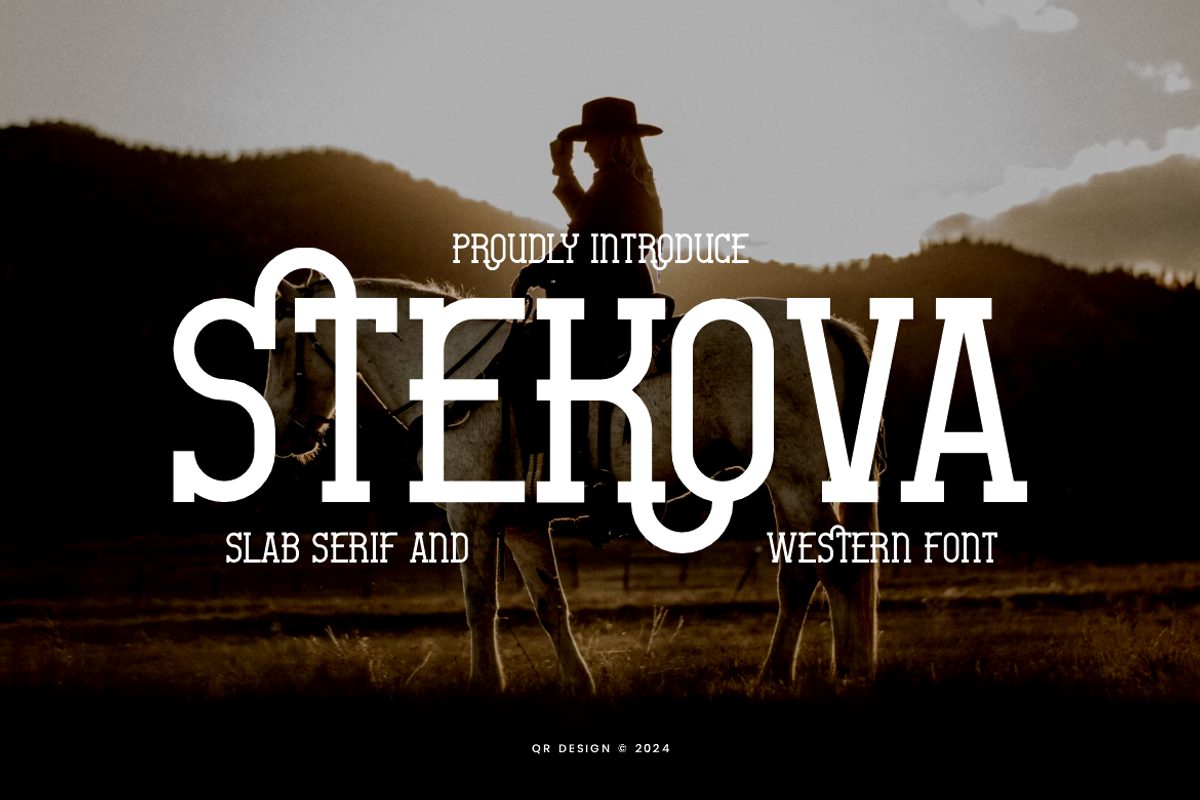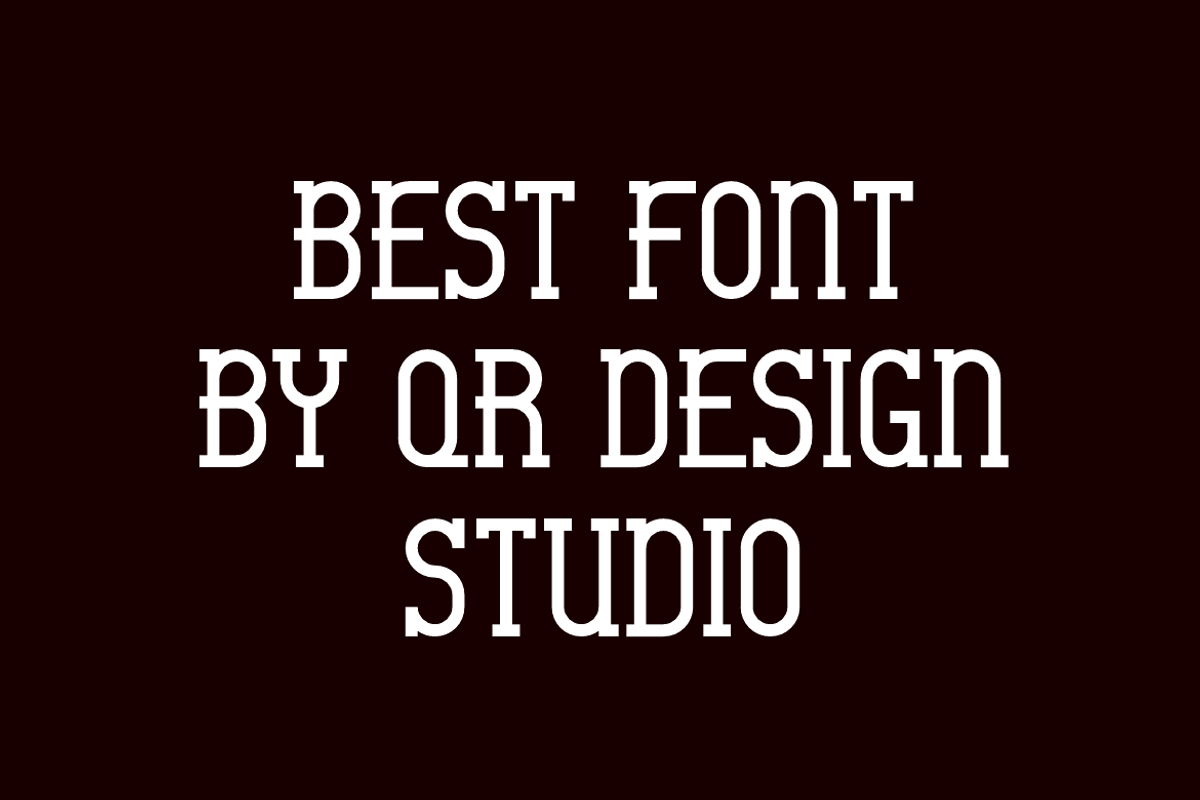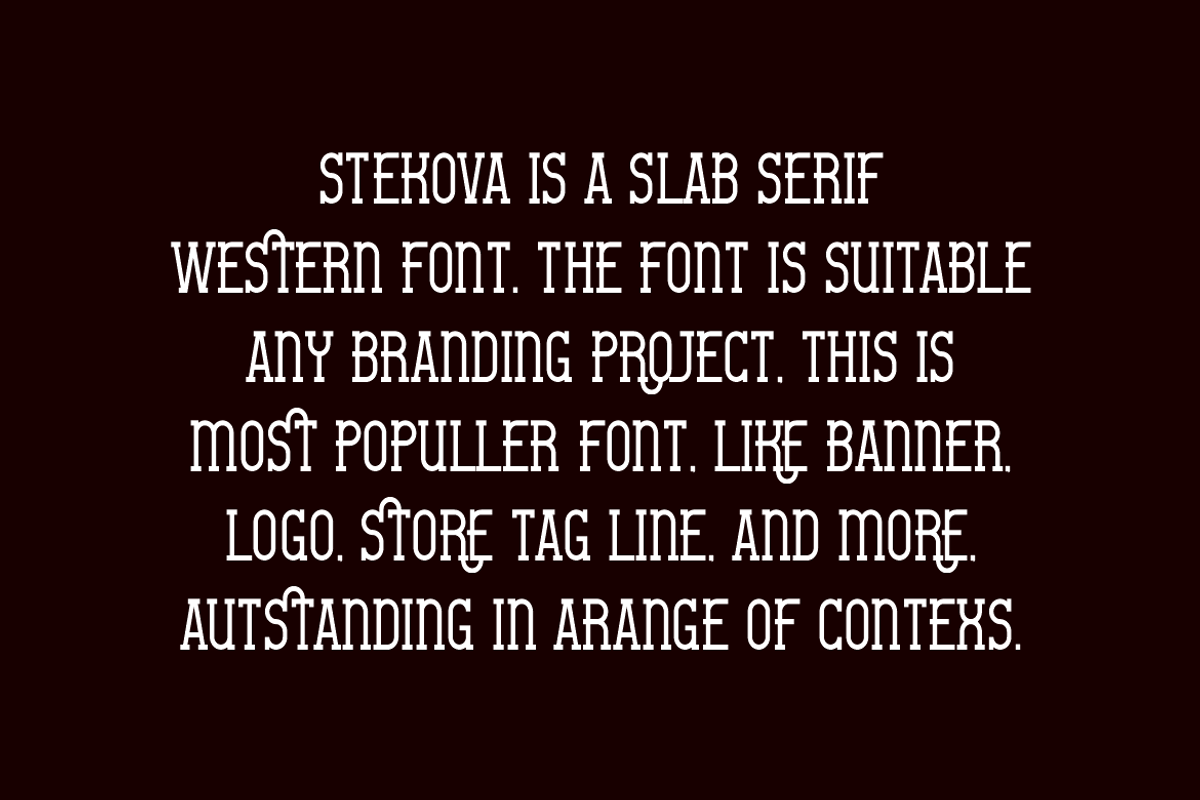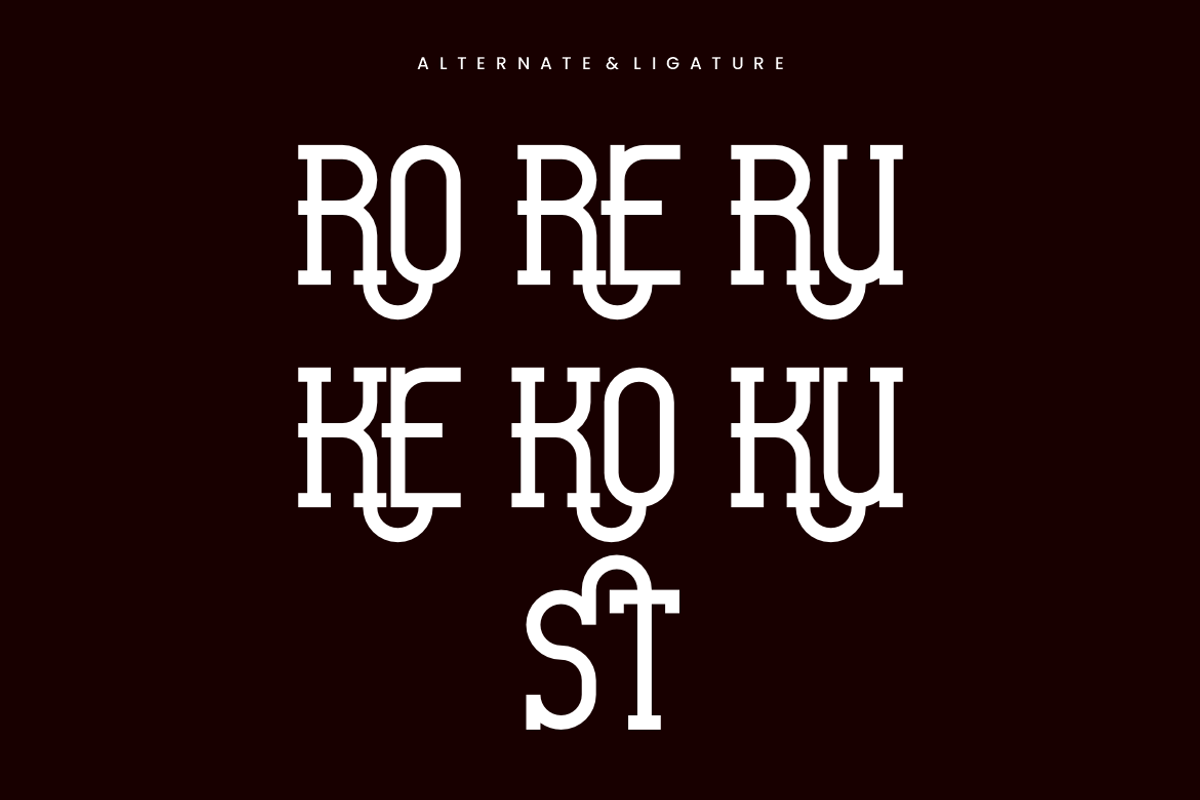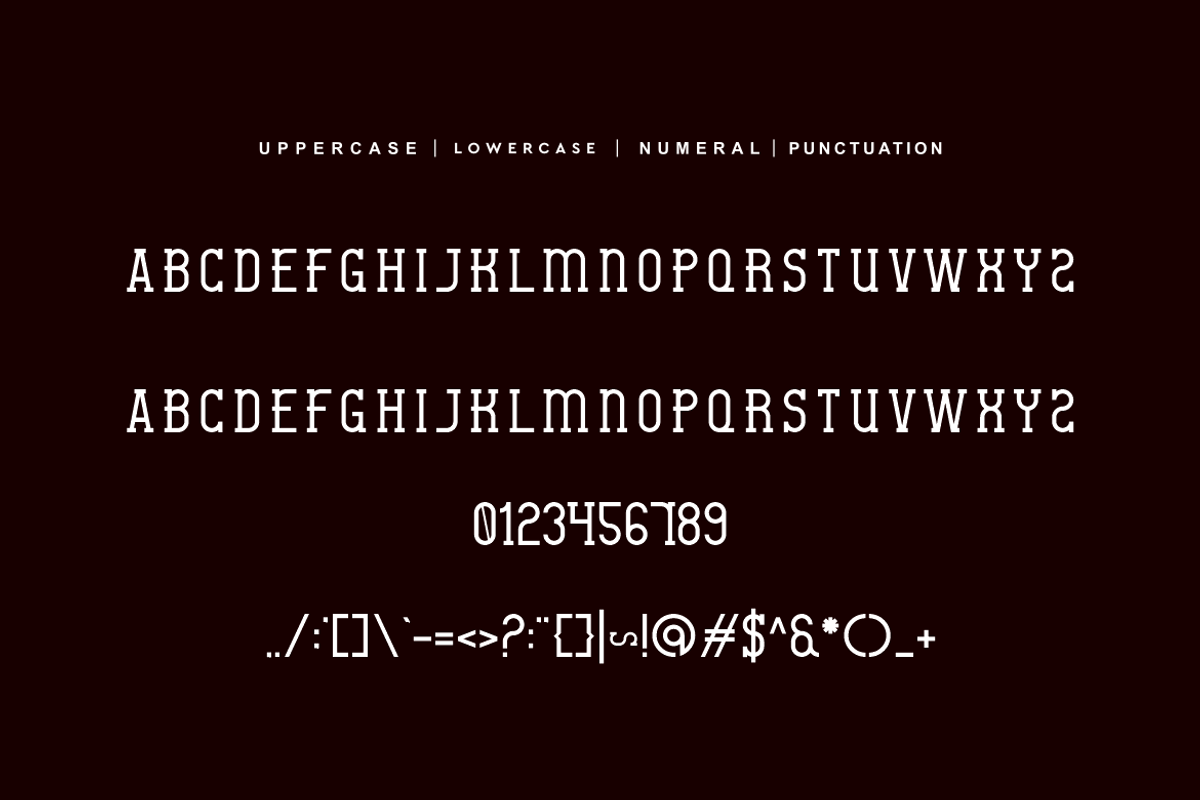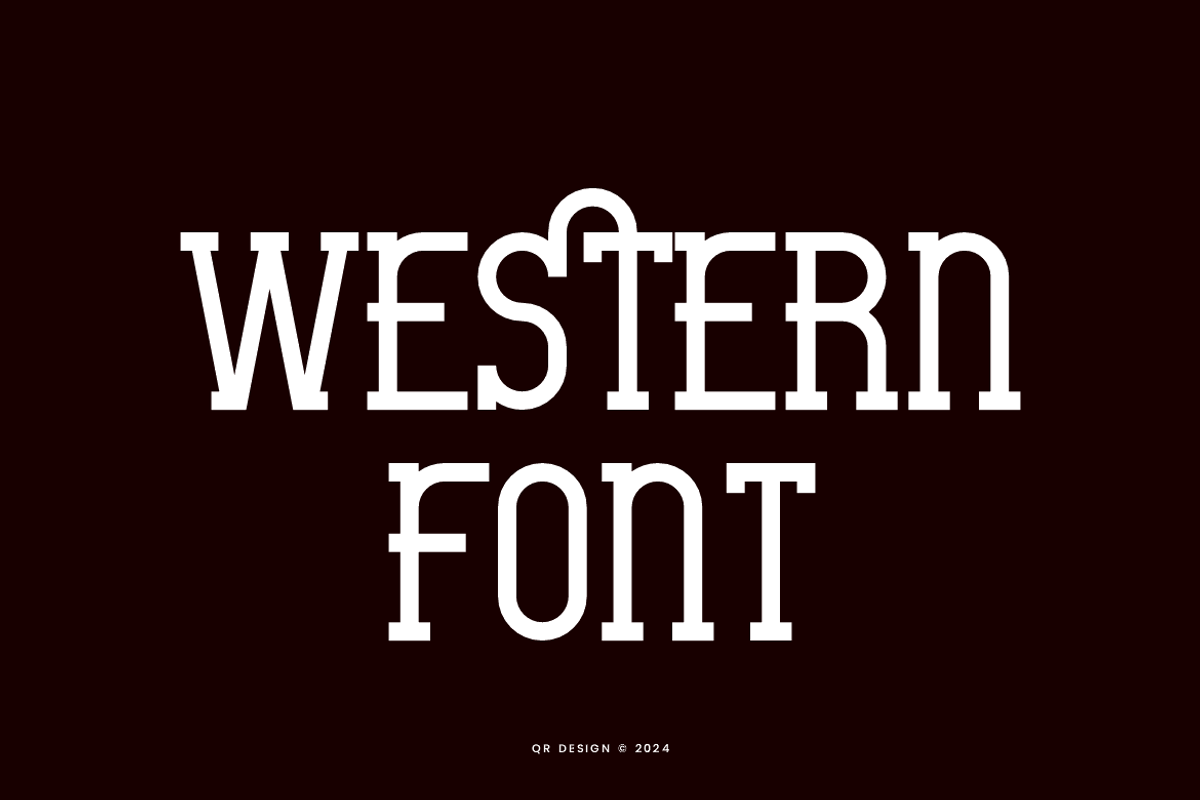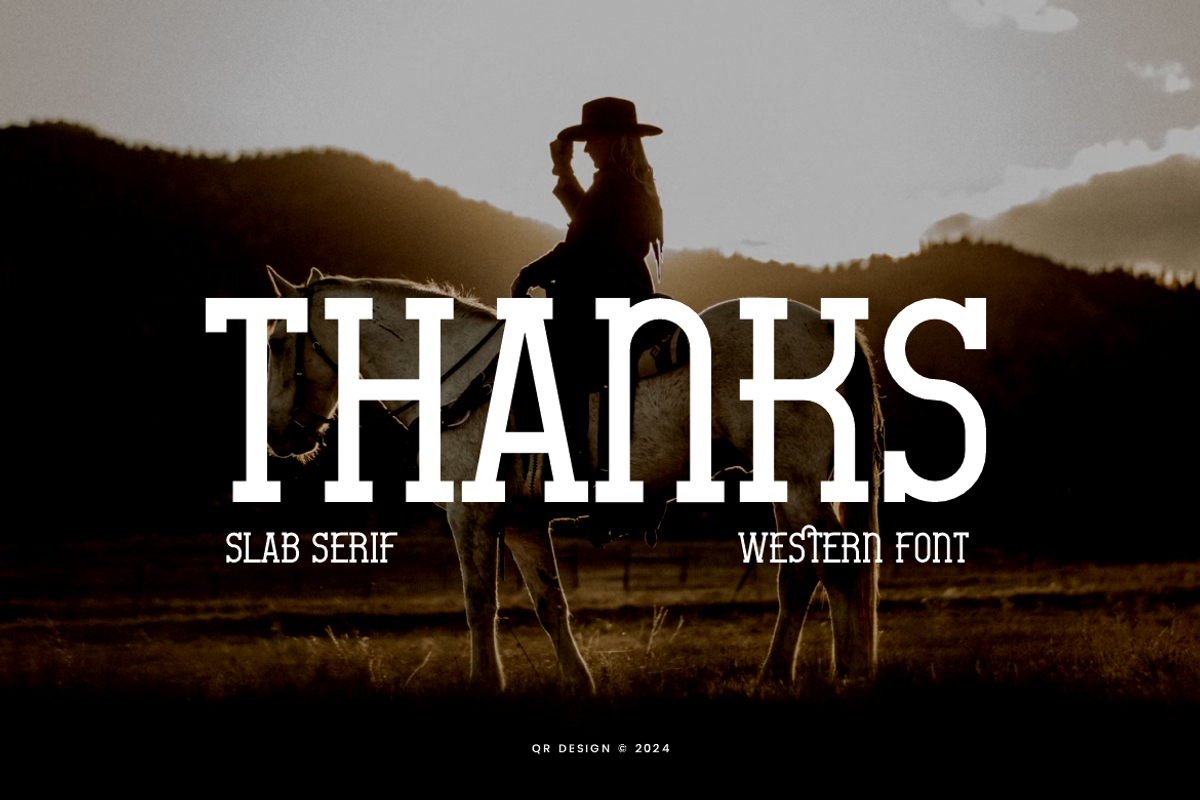
Stekova - Slab Serif Font
Stekova Font is a slab serif and authentic display font. The font is suitable for any branding project like poster, logo, sport, and many more. Outstanding in a wide range of contexts.